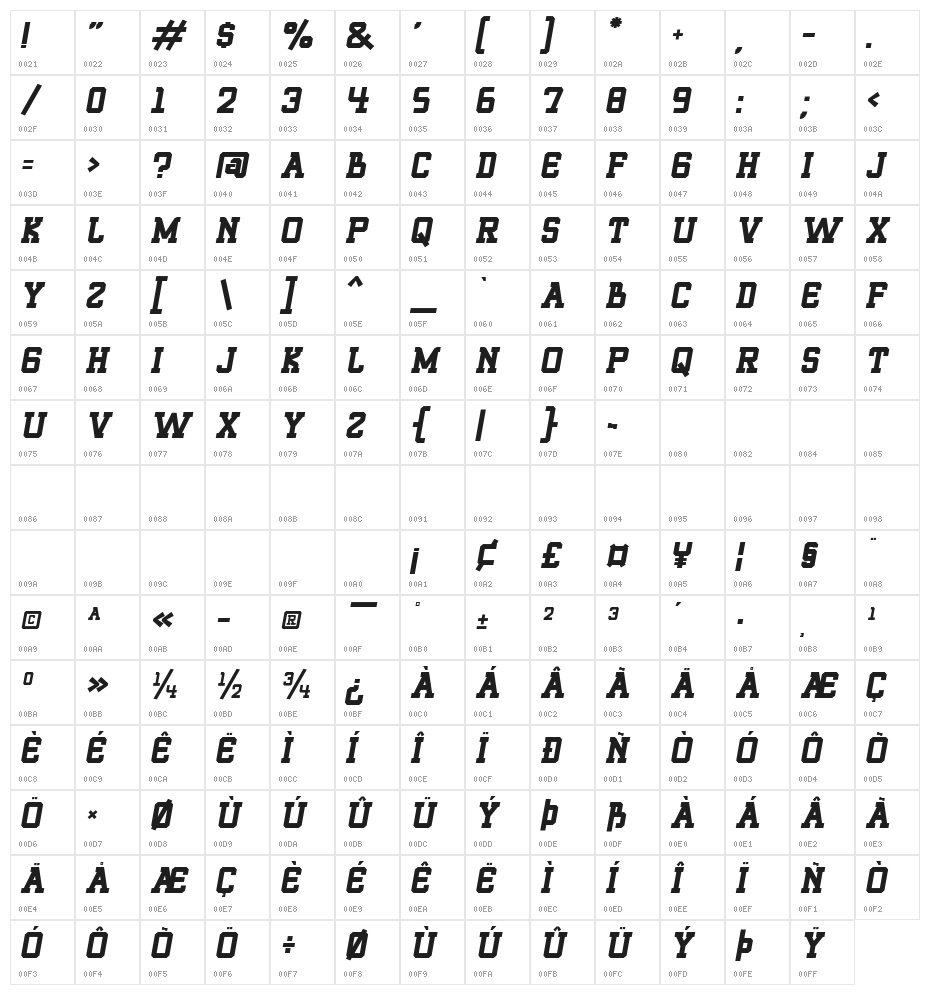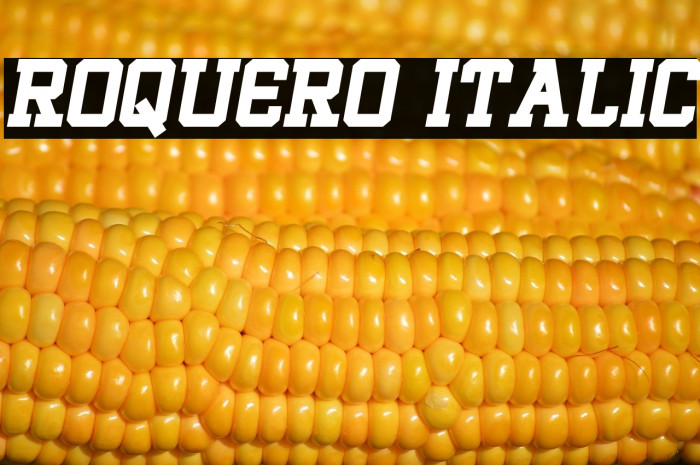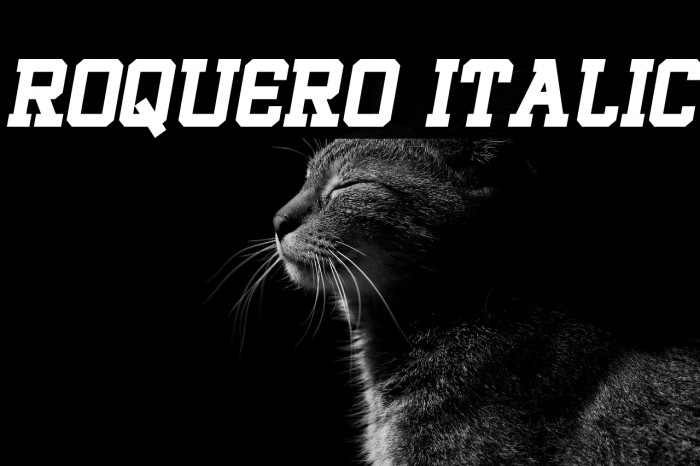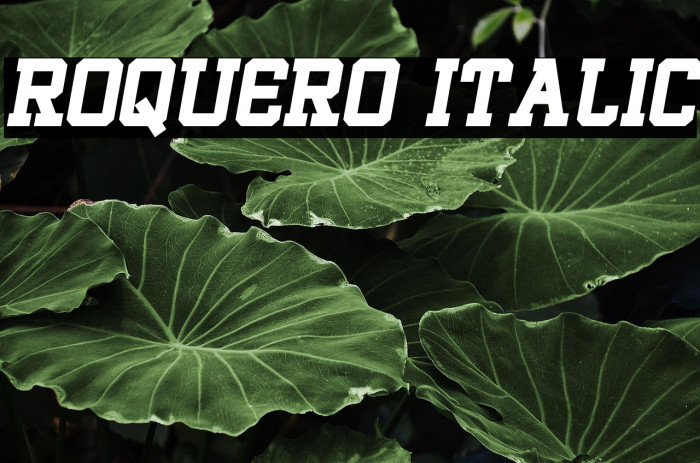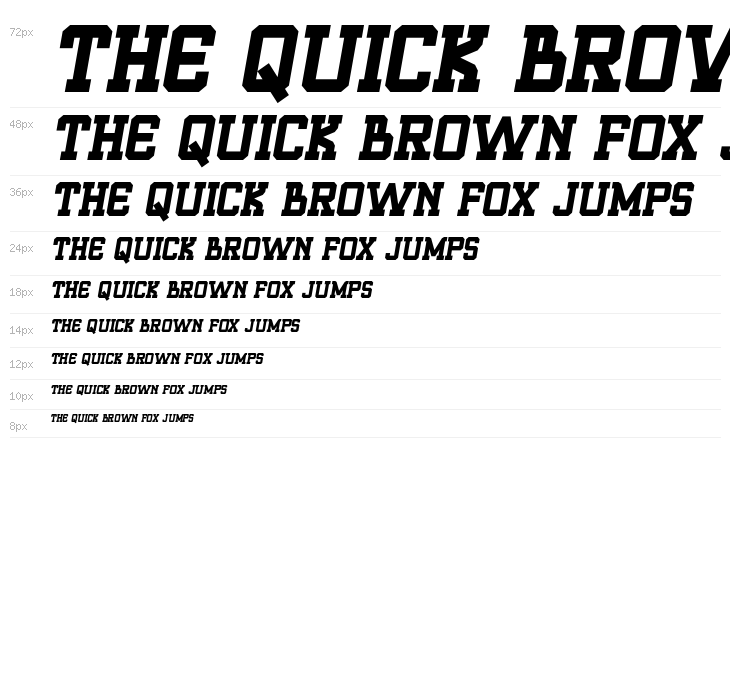
ROQUERO Italic Font
ROQUERO Italic Description
This font features a bold, italicized style with a strong presence. The characters are designed with a slight slant, giving them a dynamic and forward-moving appearance. The strokes are thick and consistent, providing a robust and impactful look. The uppercase and lowercase letters maintain a uniform style, with angular edges and a geometric structure. The numerals and special characters follow the same bold and italicized design, ensuring a cohesive appearance across all glyphs. This font is well-suited for projects that require a strong visual impact and a modern aesthetic.
| Proposed Projects | Ideal for sports branding, posters, headlines, and dynamic logo designs. |